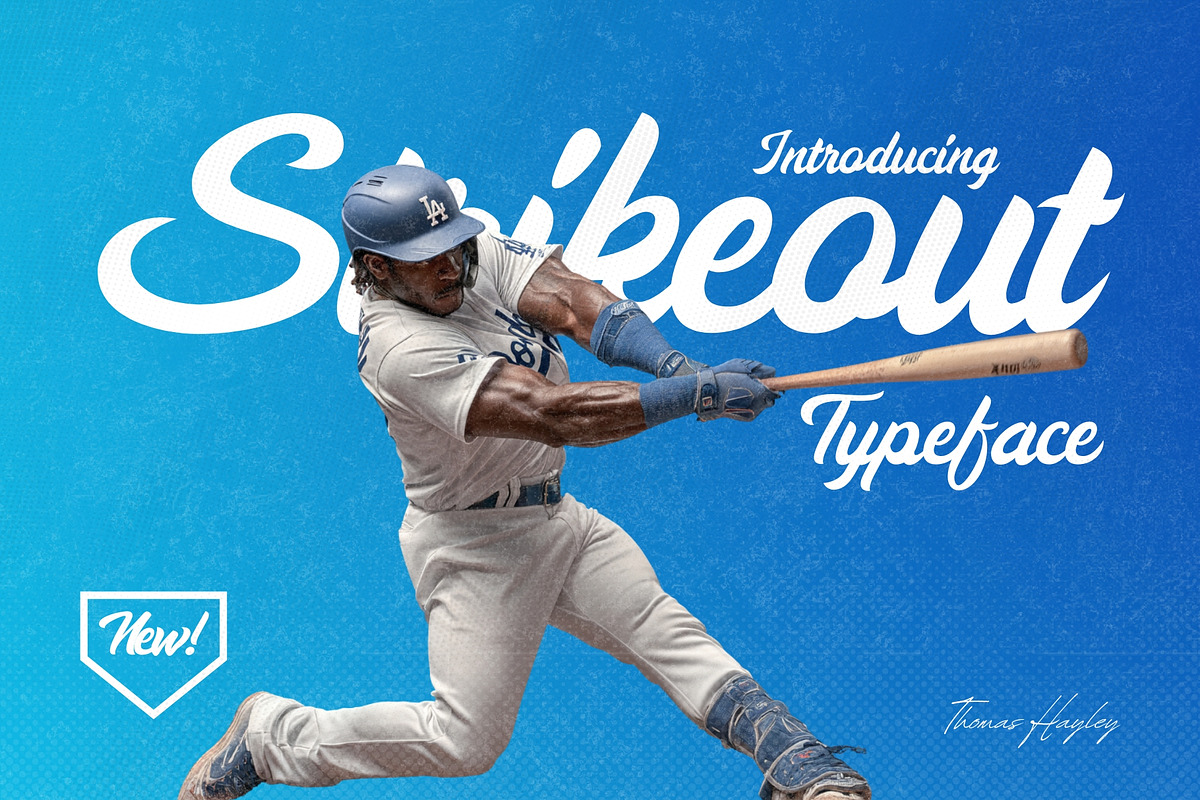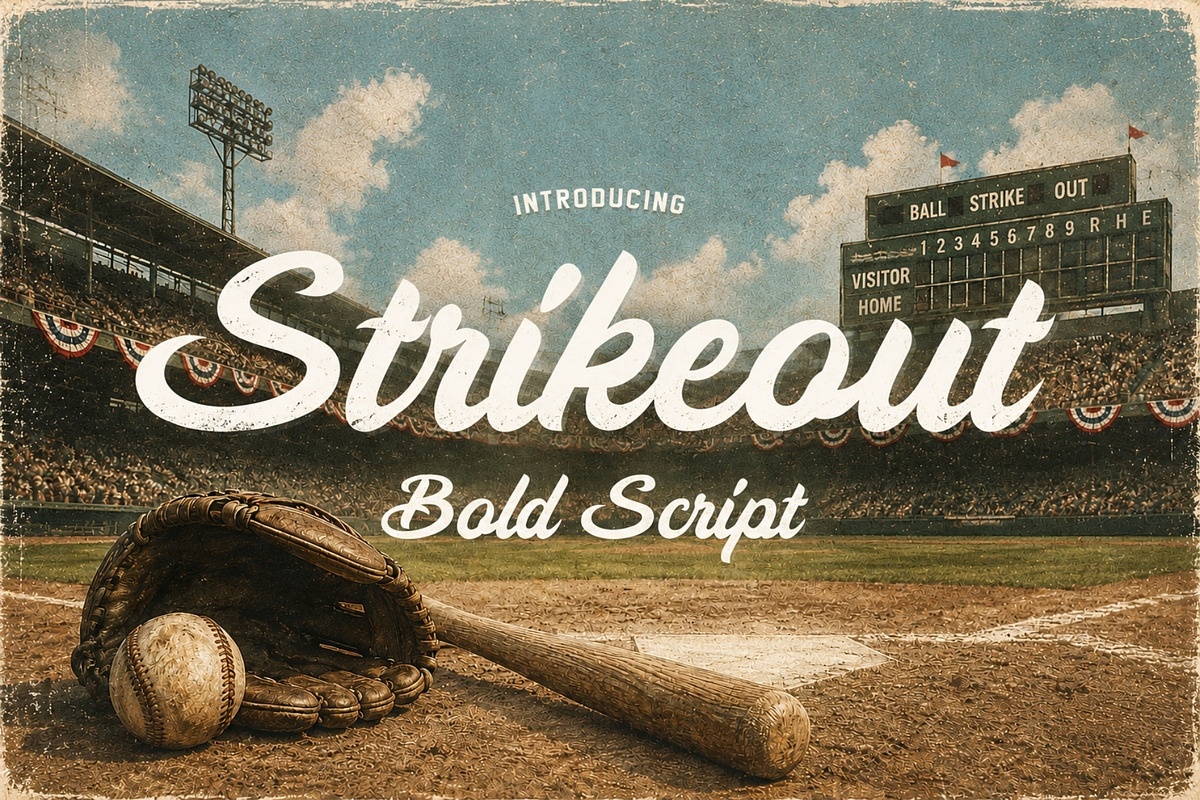
Strikeout - Bold Baseball Script
Inspired by the golden age of baseball, Strikeout captures the bold spirit and vintage flair of the 1940s–1950s American ballparks. From the crack of the bat to the roar of the crowd, every curve and stroke in this script font echoes the timeless energy of the diamond.
Crafted with precision and personality, Strikeout includes a full set of uppercase and lowercase letters, numerals, and essential special characters – giving you everything you need to hit a design grand slam. It’s not just stylish – it’s superbly legible, ensuring your message always stands out.
Whether you're designing logos, merchandise, product packaging, posters, headers, or social media graphics, Strikeout brings a nostalgic punch and a handcrafted feel to every project. It’s also perfect for greeting cards, handwritten quotes, and anything that needs a dash of retro Americana.
If you’re a fan of classic baseball culture and vintage typography, Strikeout is your go-to MVP. Ready to make your designs unforgettable? Step into the box and take your swing with Strikeout.